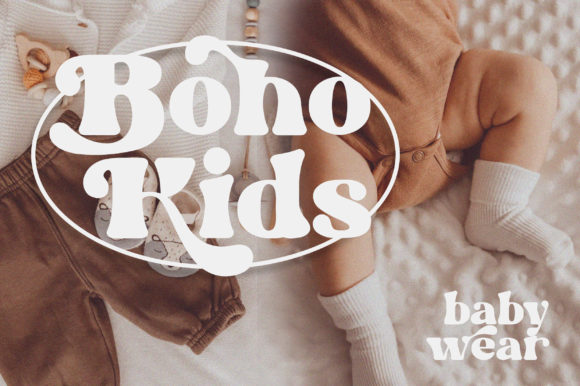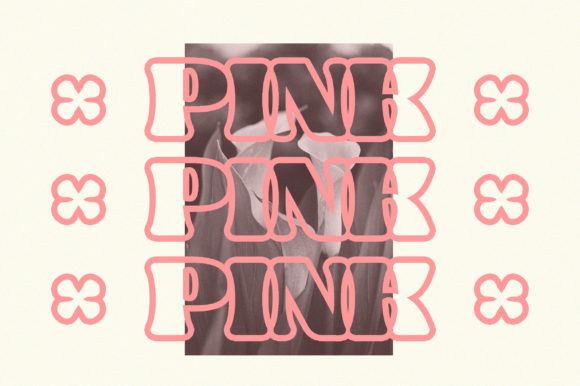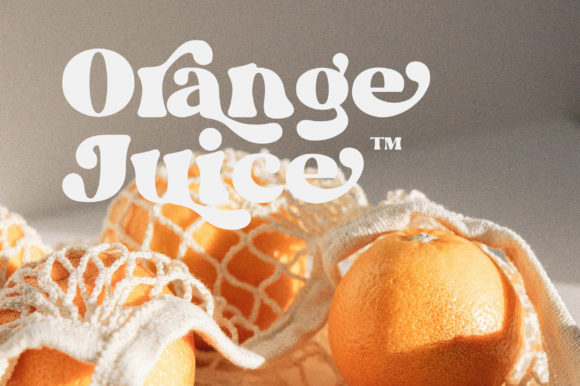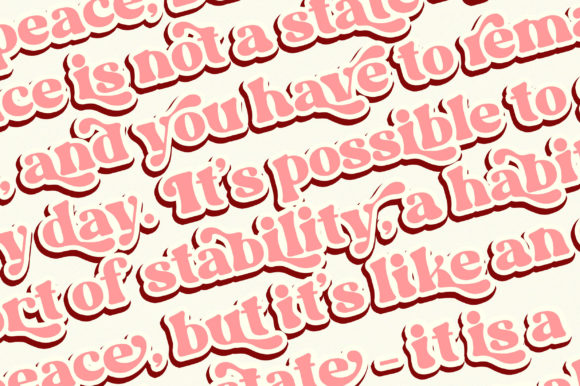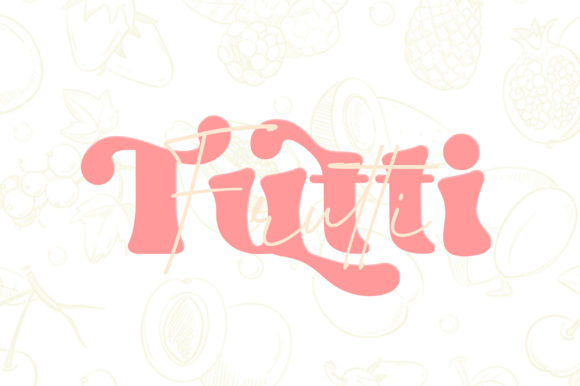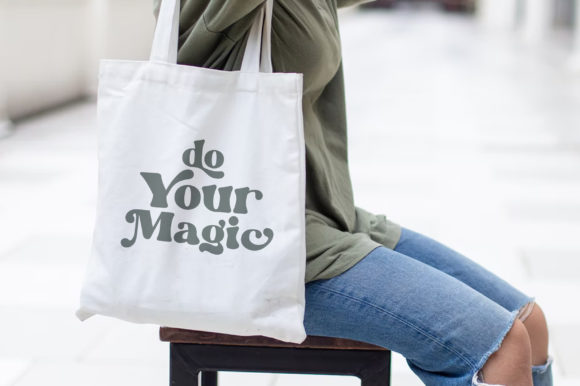
Dried Olive Font: Elevate Your Designs with a Chic and Trendy Serif Font
In the world of typography, fonts play a crucial role in conveying the tone and aesthetic of a design. For designers and crafters looking to add a touch of elegance and sophistication to their projects, the Dried Olive Font is an excellent choice. This chic and trendy serif font is designed to make a statement, and with its PUA encoding, it’s easier than ever to access a wide range of glyphs and swashes.
What is Dried Olive Font?
Dried Olive Font is a beautifully crafted serif font that exudes a sense of refinement and luxury. Its unique design combines classic elements with modern flair, making it perfect for a variety of design applications, from branding and advertising to packaging and digital media. Whether you’re working on a high-end fashion project or a creative craft, Dried Olive Font is sure to impress.
Key Features of Dried Olive Font
- PUA Encoding: Dried Olive Font is PUA (Private Use Area) encoded, which means that you can easily access all of the glyphs and swashes using a keyboard. No more complicated software or technical expertise required!
- Chic and Trendy Design: Dried Olive Font boasts a sleek and sophisticated design that’s perfect for designers and crafters who want to add a touch of elegance to their projects.
- Serif Font: As a serif font, Dried Olive Font features small lines or flourishes at the ends of the letters, giving it a classic and refined look.
- Wide Range of Glyphs and Swashes: With PUA encoding, you get access to a vast library of glyphs and swashes, allowing you to experiment with different styles and effects.
Why Choose Dried Olive Font?
So, what sets Dried Olive Font apart from other fonts on the market? Here are just a few reasons why designers and crafters love this font:
- Versatility: Dried Olive Font is incredibly versatile, making it suitable for a wide range of design applications, from logos and branding to invitations and crafts.
- Elegance: This font exudes elegance and sophistication, making it perfect for high-end designs or projects that require a touch of luxury.
- Easy to Use: With PUA encoding, you can easily access all of the glyphs and swashes, making it simple to get creative with your designs.
Using Dried Olive Font in Your Designs
Ready to add Dried Olive Font to your design arsenal? Here are a few ideas to get you started:
- Branding and Logos: Use Dried Olive Font to create stunning logos and branding materials that exude elegance and sophistication.
- Invitations and Stationery: Add a touch of luxury to your invitations, business cards, and other stationery with Dried Olive Font.
- Packaging Design: Use Dried Olive Font to create eye-catching packaging designs that stand out on store shelves.
- Digital Media: Dried Olive Font is perfect for digital media, including social media graphics, blog posts, and website headers.
In conclusion, Dried Olive Font is a chic and trendy serif font that’s perfect for designers and crafters looking to add a touch of elegance and sophistication to their projects. With its PUA encoding and wide range of glyphs and swashes, this font is easy to use and incredibly versatile. Whether you’re working on a high-end fashion project or a creative craft, Dried Olive Font is sure to impress. So why wait? Add Dried Olive Font to your design arsenal today and see the difference it can make!